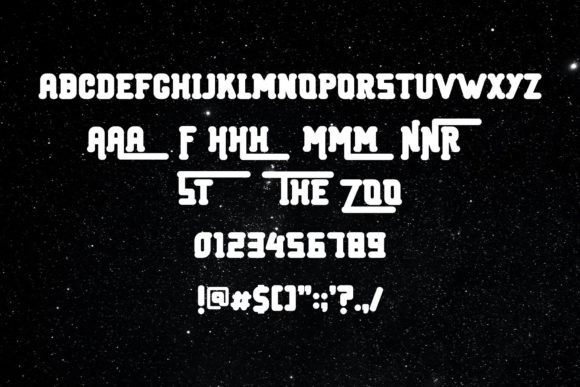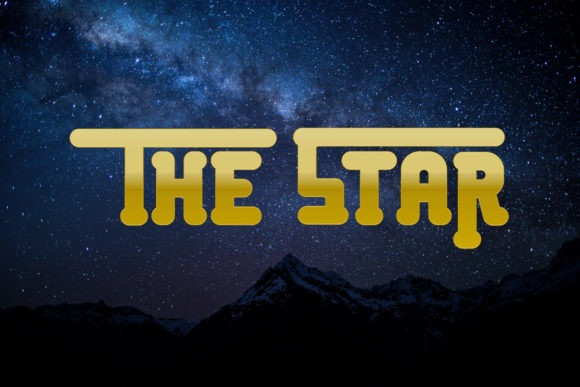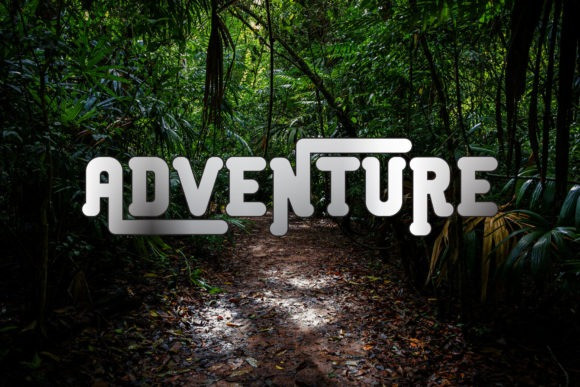
Adventure Bold Font
Adventure Bold Font is a cool, bold and assertive display font. This font is ideal for writing web designs, business cards, or pretty much anything else that requires a trendy touch.